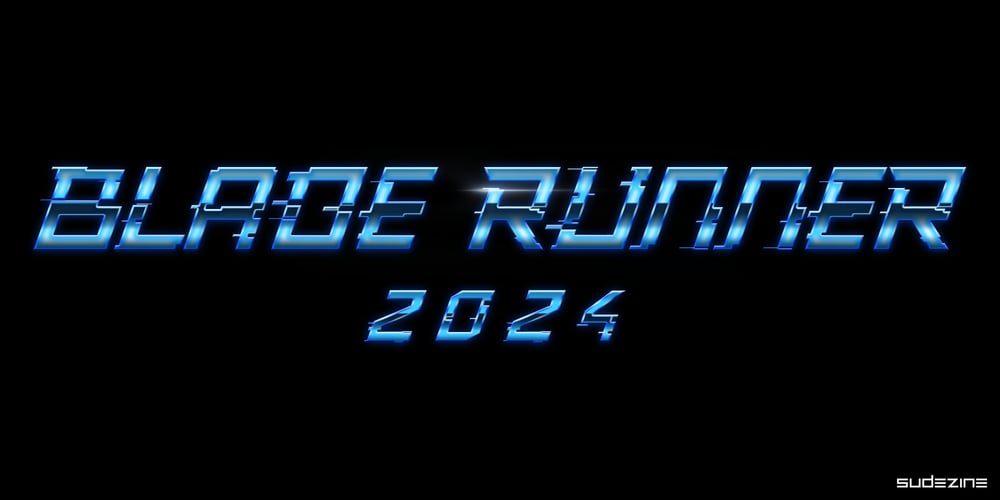
SDCyberGlitch
SDCyberGlitch font
SDCyberGlitch Font Family was designed by Suhee Hwang and published by Sudezine. SDCyberGlitch contains 1 styles and family package options. SDCyberGlitch is a futuristic cyber-style and dystopian futuristic style font. You can use this font for logos, quotes, invitations, greeting cards, journals, posters, clothing, and more. This font will infuse your designs with playfulness and fun!